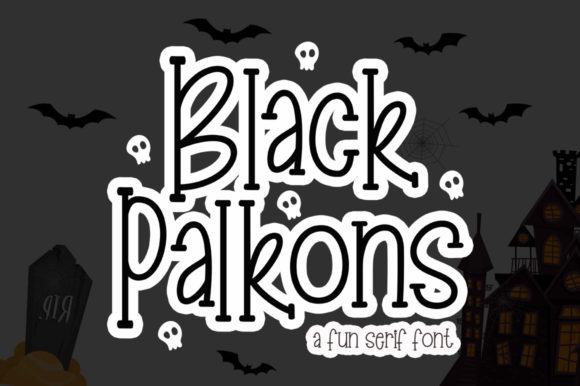
The Designer’s Delight: Black Palkons Font
I’ll never forget the time I was working on a project for a client who wanted a sophisticated, elegant look. I had spent hours browsing through font libraries, but nothing seemed quite right. That was until I stumbled upon Black Palkons – a thin lettered and tall serif font that instantly elevated my design. In this article, I’ll share my experience with Black Palkons, its features, and how to make the most of it in your designs.
- ✨ Versatility: Black Palkons is an incredibly versatile font that can be used for a wide range of projects, from luxury branding to elegant invitations.
- ✅ Readability: The thin lettering and tall serifs make it easy to read, even at small sizes.
- 💯 Elegance: Black Palkons adds a touch of sophistication to any design, making it perfect for high-end projects.
While Black Palkons is an amazing font, there are a few things to keep in mind:
- 🤔 Limited use in body text: Due to its thin lettering, Black Palkons may not be the best choice for long blocks of body text.
- ⚠️ Kerning issues: As with any font, kerning issues may arise when using Black Palkons with certain letter combinations.
A Practical Guide: Using Black Palkons in Your Designs
Black Palkons was designed with elegance and sophistication in mind. Its creator aimed to craft a font that would evoke a sense of luxury and refinement. The result is a font that is both versatile and eye-catching.
Q: What is the best use for Black Palkons?
A: Black Palkons is perfect for high-end branding, luxury advertising, and elegant invitations.
Q: Is Black Palkons suitable for body text?
A: While Black Palkons can be used for body text, its thin lettering may not be the best choice for long blocks of text.
Q: Is Black Palkons available in different weights?
A: Black Palkons is a single-weight font, but its versatility and elegance make it suitable for a wide range of projects.